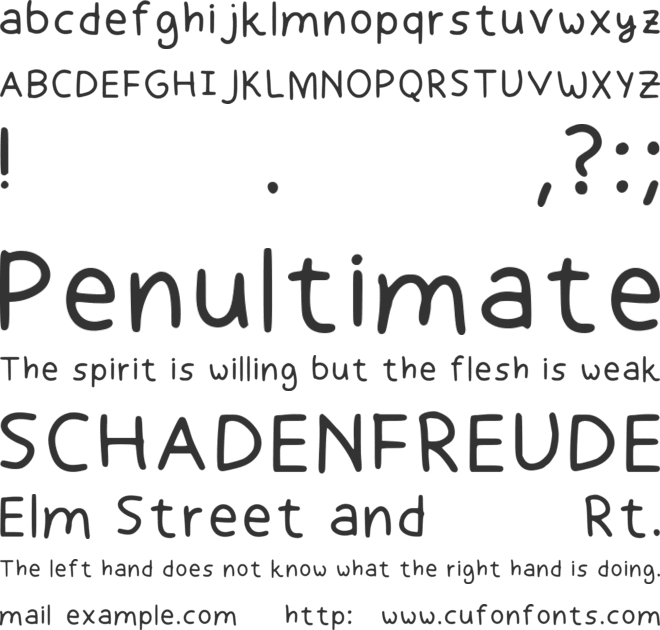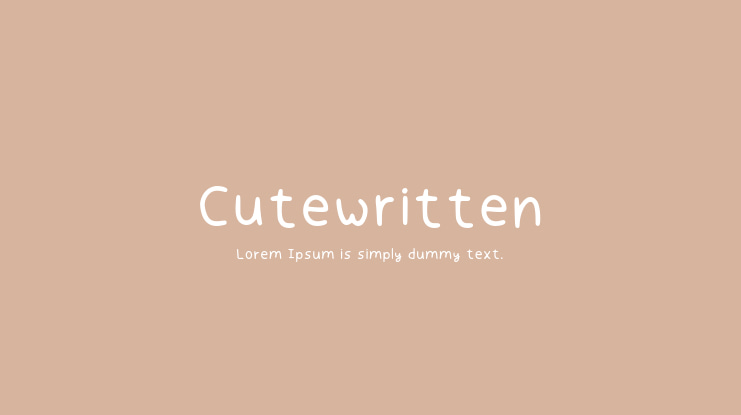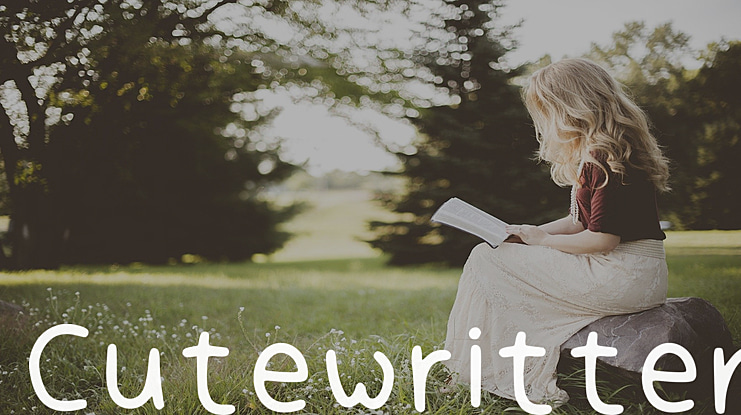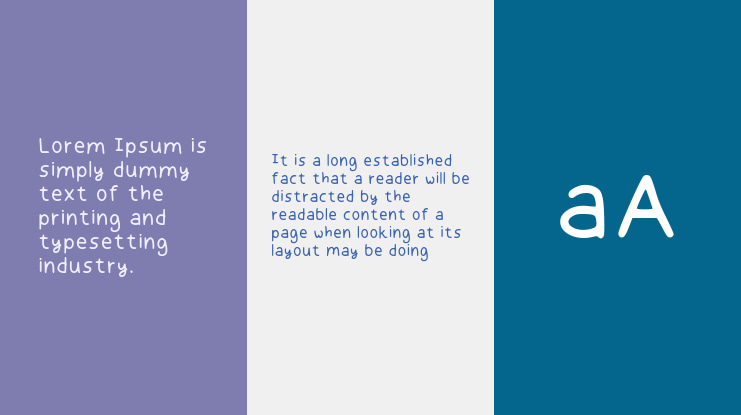
Cutewritten Font
Please enjoy the font that I created myself! If it looks familiar, please note that I created this font using "calligraphr" please do not tell me that this isn't my font or handwriting. Enjoy!